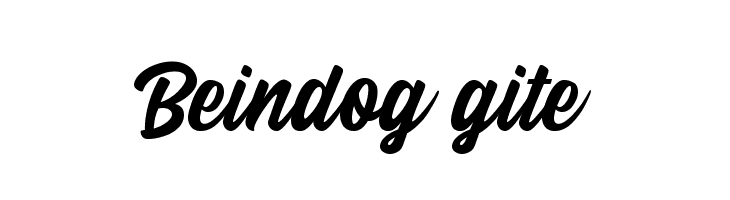
Business-themed pictogram font with office and teamwork silhouettes.
A graffiti-inspired font with bold, angular strokes and a dynamic, energetic feel.
A bold, hand-painted style font with textured, irregular characters.
A bold, italicized 3D font with sharp angles and a dynamic style.
A bold, 3D font with sharp edges and a striking shadow effect.
A bold, dramatic font with tall, narrow characters and sharp angles.
A bold, italicized font with a dynamic slant and high contrast, perfect for impactful headlines.
A bold, narrow font with sharp serifs and a vintage Western style.
A bold, italic font with sharp angles and exaggerated serifs, exuding energy and motion.
Bold, italicized font with a 3D chrome effect and tight spacing.
A bold, decorative font with a three-dimensional, chrome-like effect.
A bold, condensed font with a vintage, western-inspired style.
A bold, condensed, and italicized font with a dynamic and modern style.
A bold, angular font with tall, narrow characters and a strong visual impact.
A bold, expanded, and italicized font with dynamic character shapes.
A bold, italicized font with a gradient effect and striped appearance.
A bold, gradient-striped font with a modern and dynamic style.
A bold, italic font with sharp angles and dynamic energy.
A bold, left-leaning font with a dynamic and energetic style.
A bold, italic font with a three-dimensional shadow effect, ideal for dynamic displays.
A bold, Western-inspired font with a unique striped pattern and strong vertical emphasis.
A bold, condensed font with a vintage Western style.
A bold, two-tone italic font with a dynamic and modern design.
A bold, two-tone font with a modern, decorative style and striking visual impact.
A bold, decorative font with a three-dimensional, boxed style.
A bold, distressed font with a hand-painted, brush-like texture.
A bold, brush-style font with a hand-drawn, dynamic appearance.
A bold, horror-themed font with dripping, jagged characters.
A bold, distressed font with a dripping effect, perfect for horror themes.
A bold, flowing script font with smooth, cursive letters and a robust appearance.
A bold, hand-drawn font with a textured, sketch-like appearance.